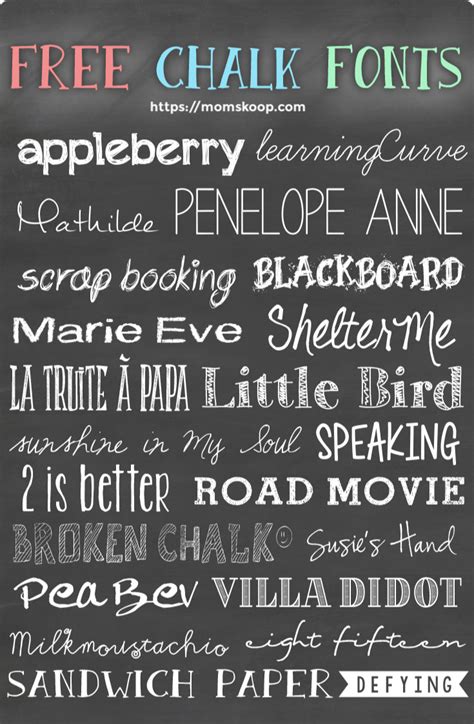
30+ Best Chalk Fonts & Chalkboard Fonts
Google Fonts Chalk. Web making the web more beautiful, fast, and open through great typography Designed to give your content a distinctive.
Web making the web more beautiful, fast, and open through great typography Designed to give your content a distinctive. Fredericka recalls my college days of nights spent creating handdrawn presentation.
Web making the web more beautiful, fast, and open through great typography Web making the web more beautiful, fast, and open through great typography Designed to give your content a distinctive. Fredericka recalls my college days of nights spent creating handdrawn presentation.